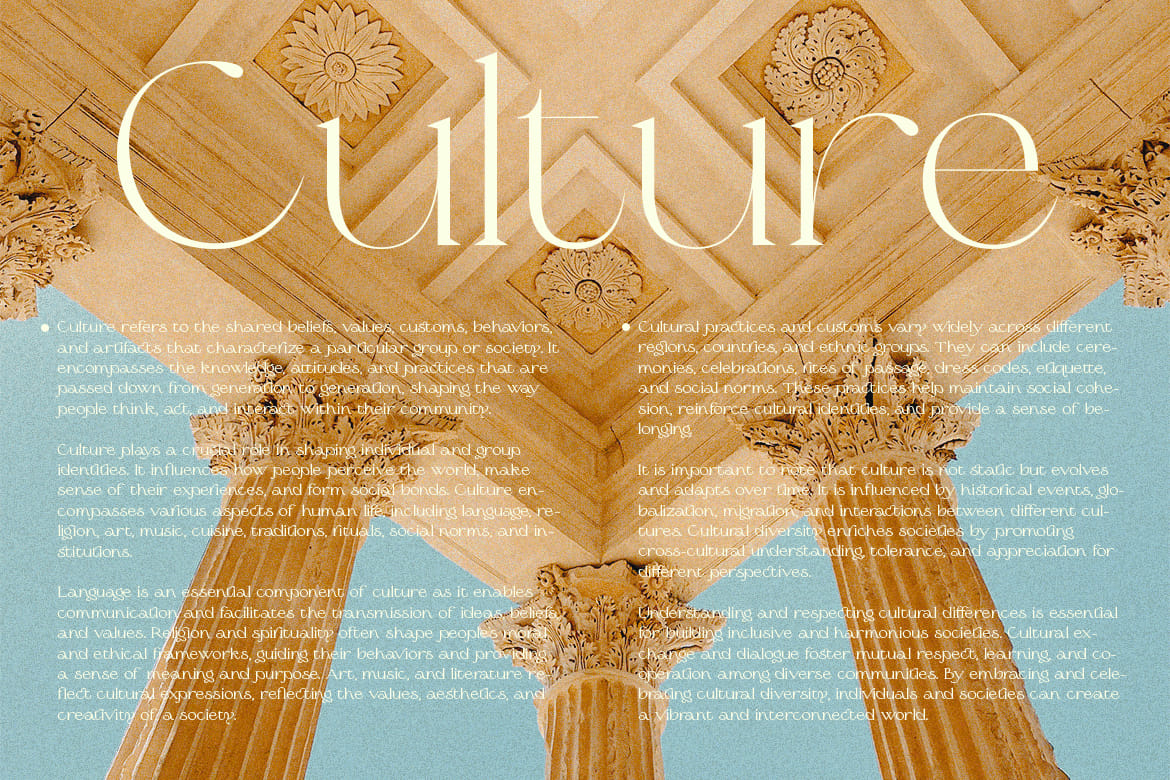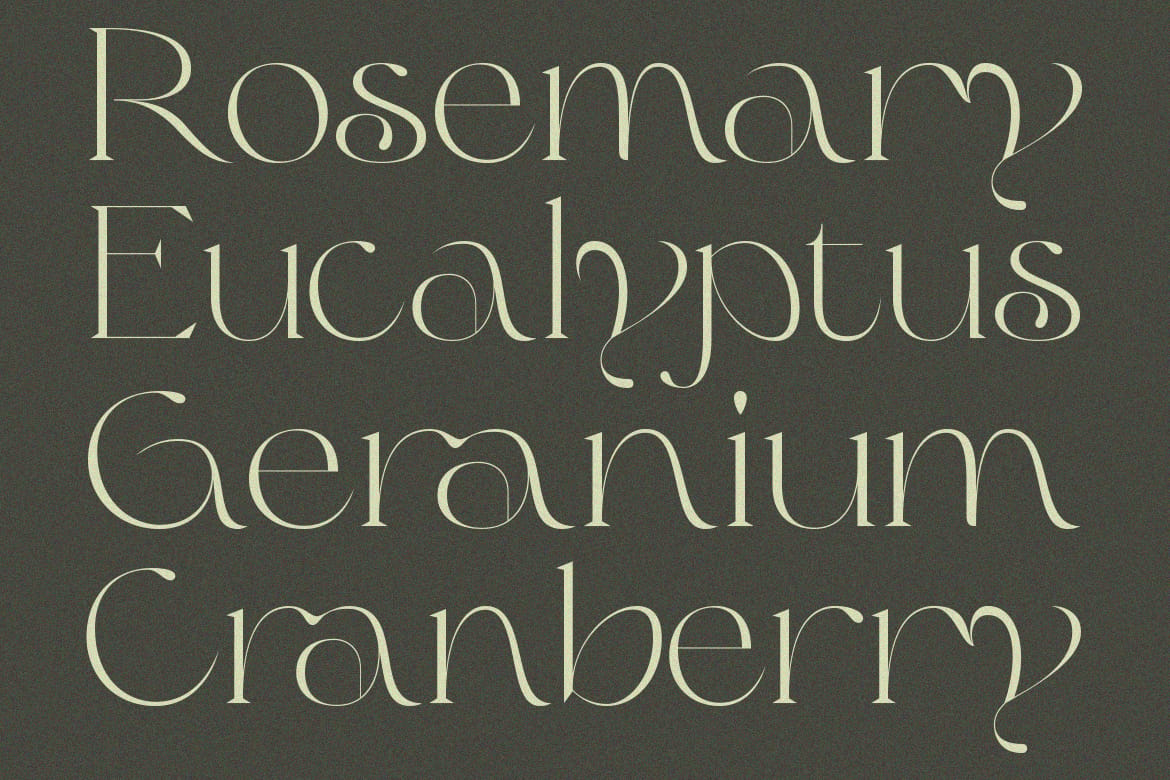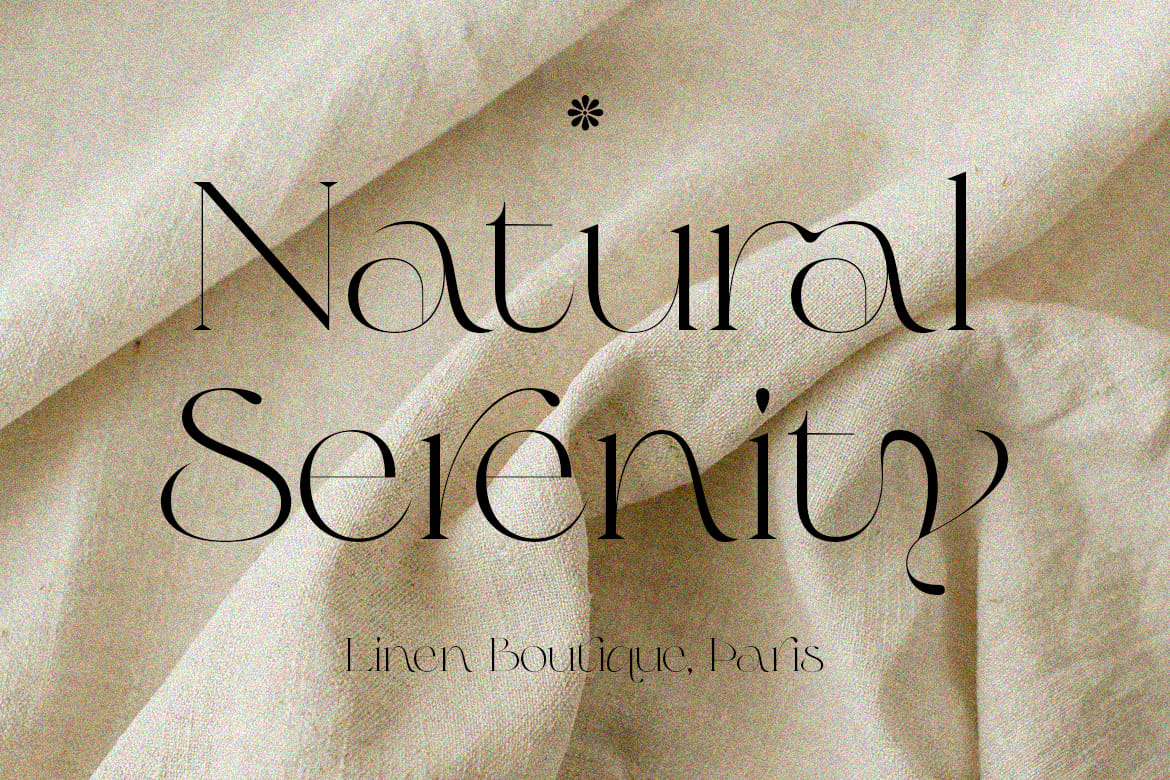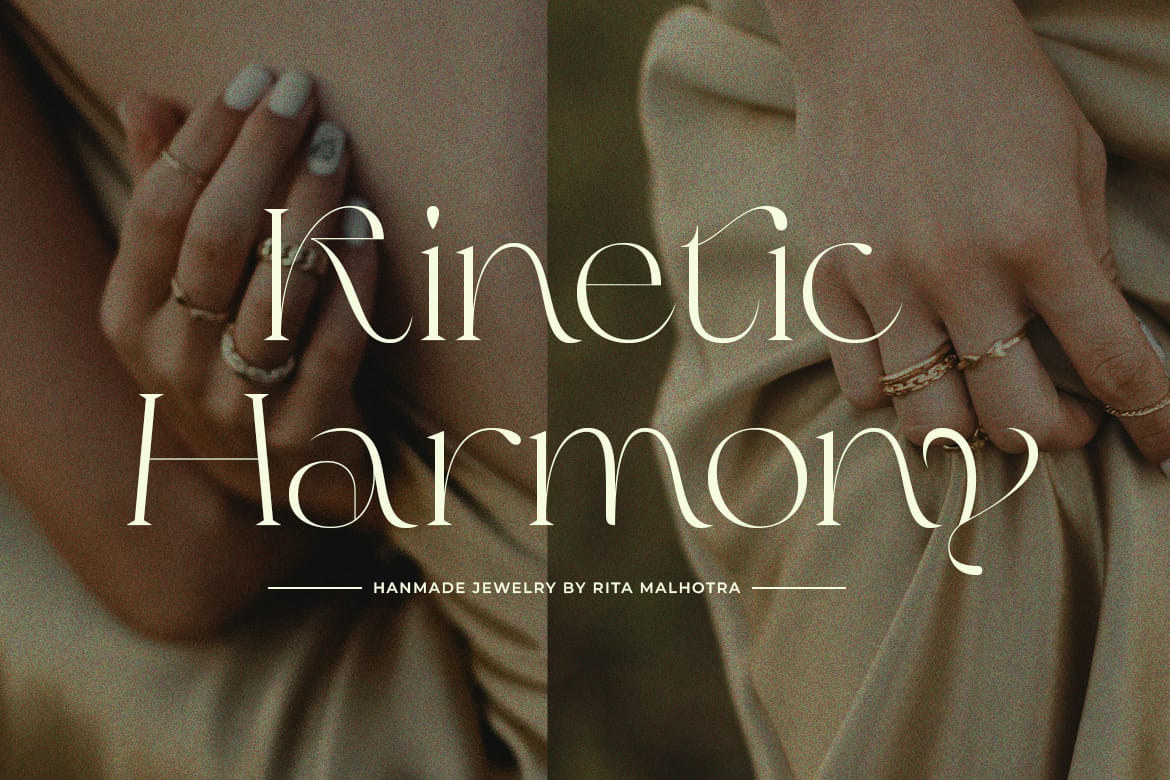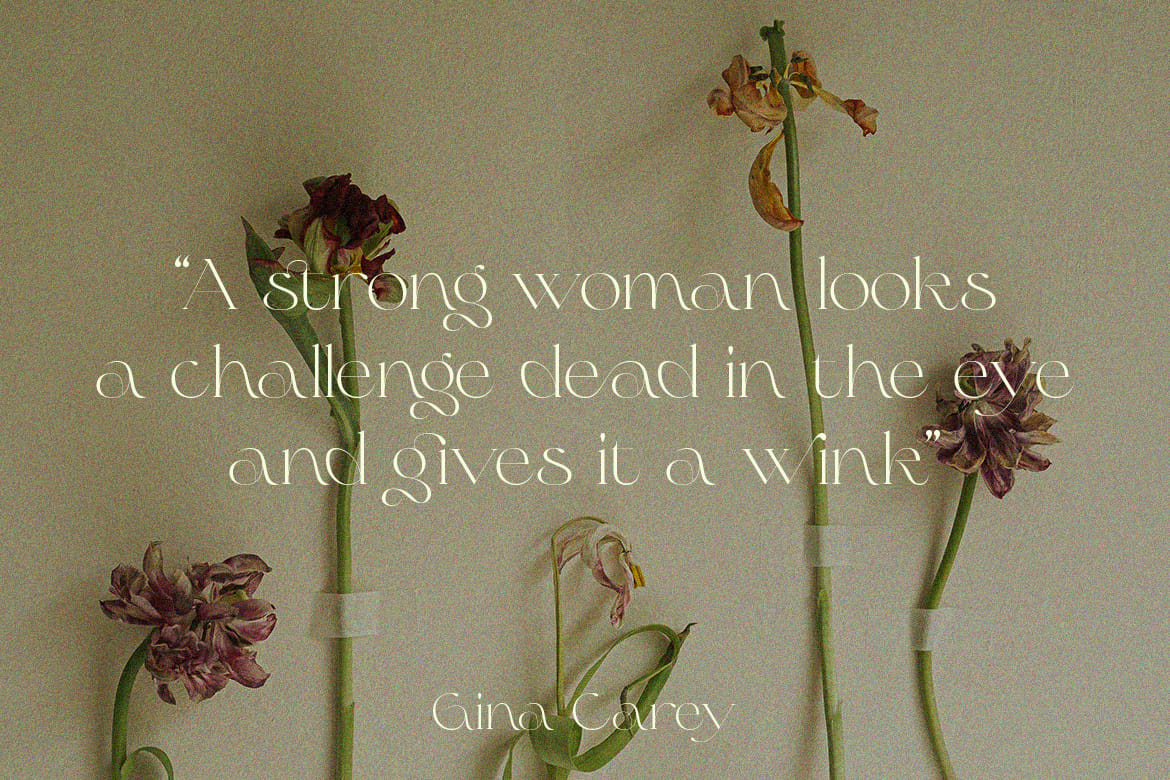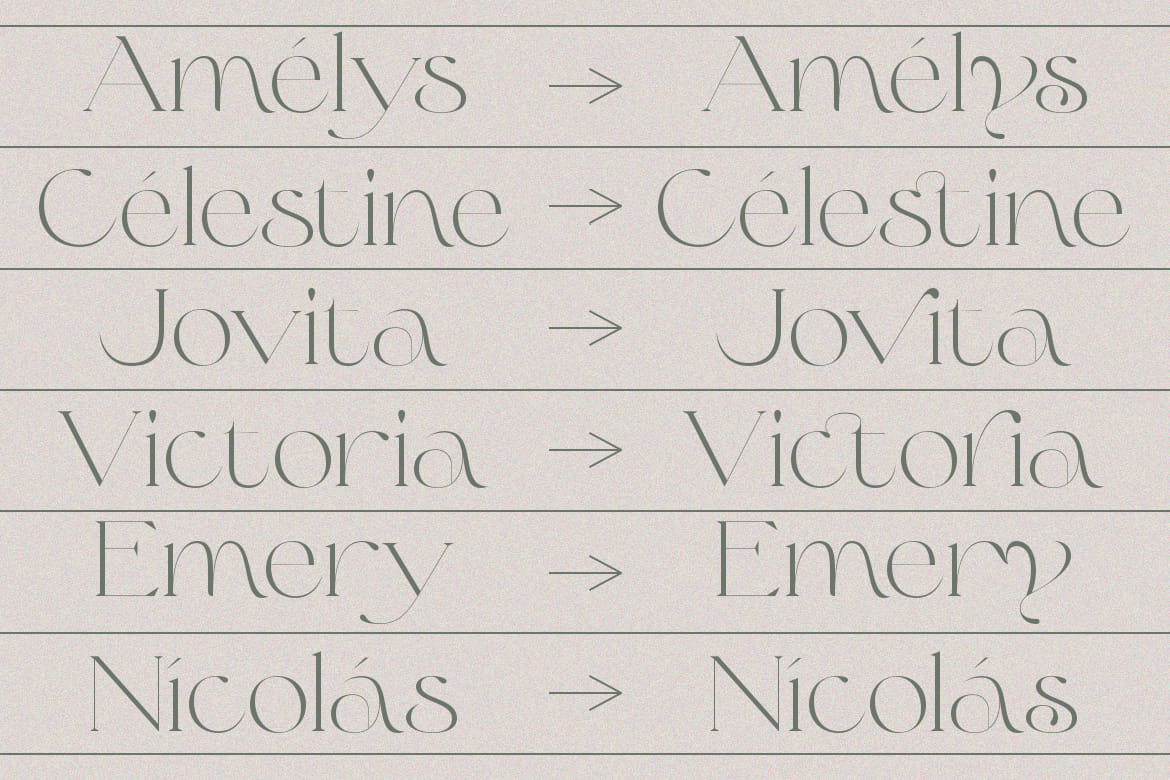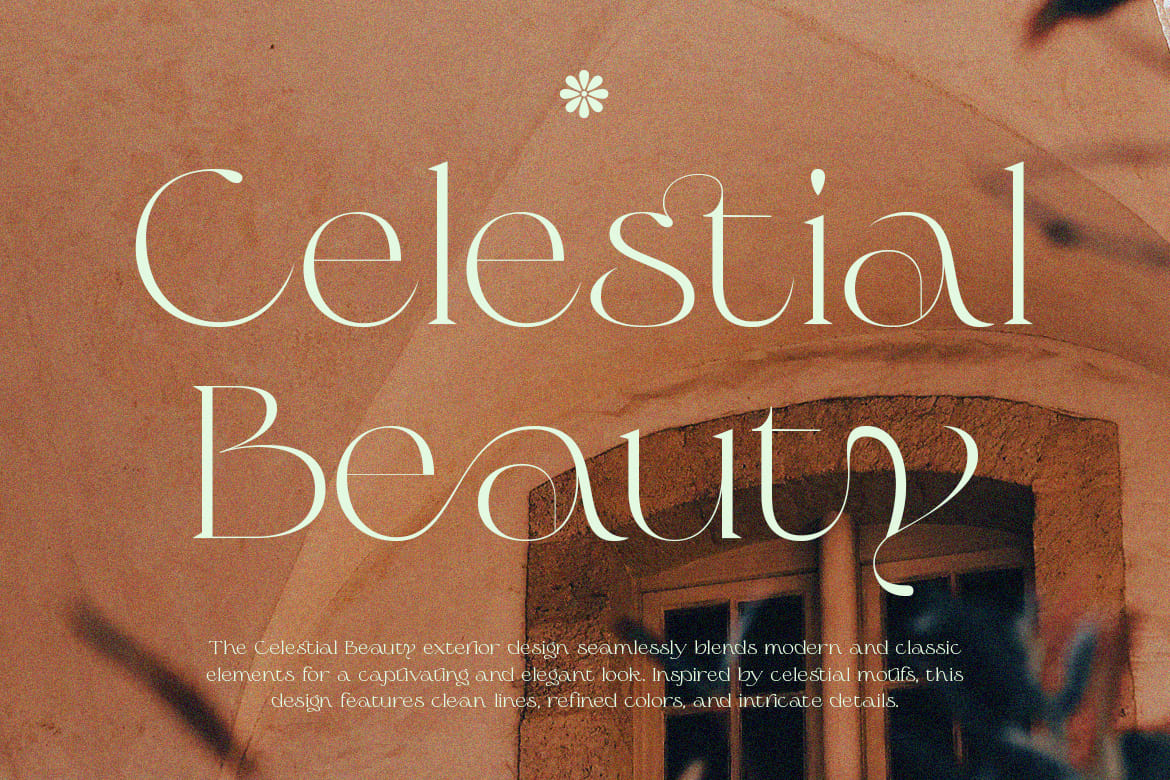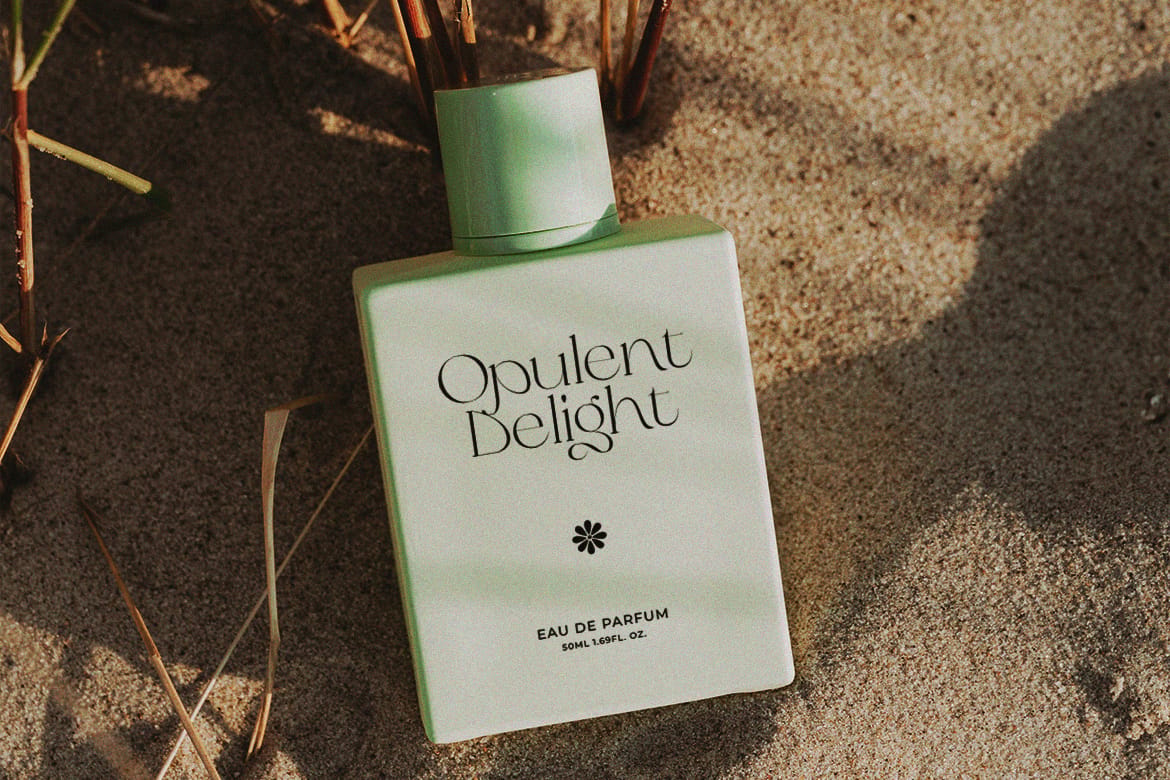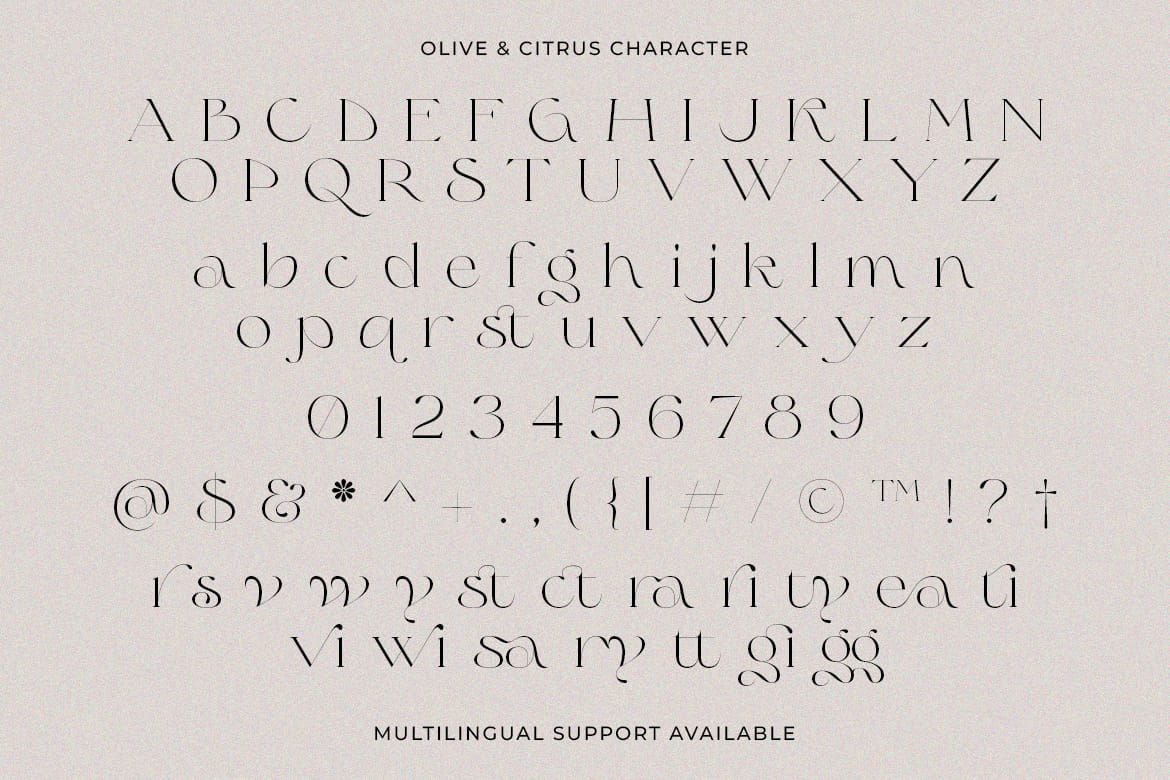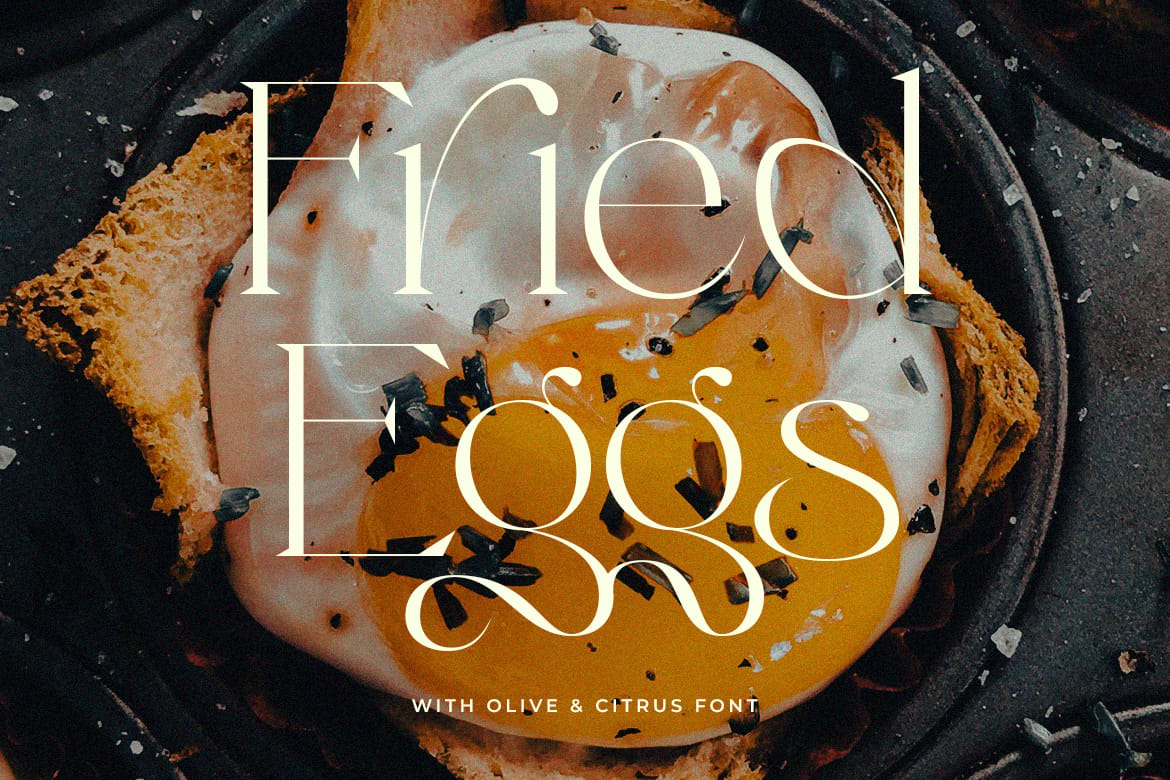
Olive & Citrus - Modern Serif
Olive & Citrus is a modern, classic and elegant serif typeface. It is suitable for branding designs, logos, magazines and social media posts. Features: Uppercase, Lowercase, Numeral, Punctuation, Multilingual, Alternates, Ligatures & PUA Encoded. Obtained file format: Otf, Ttf & Woff.
• Modern classic elegant serif typeface
• Alternates, ligatures & PUA encoded